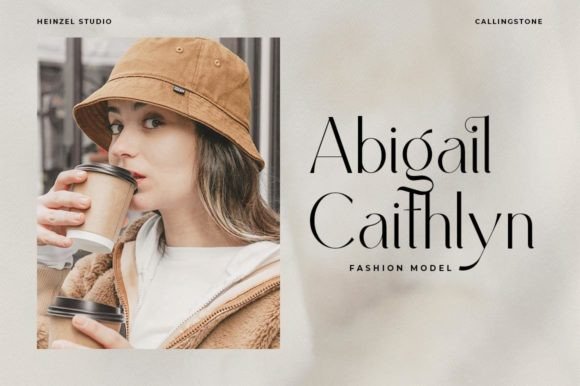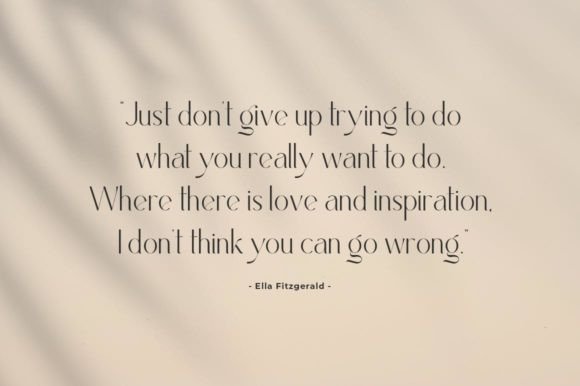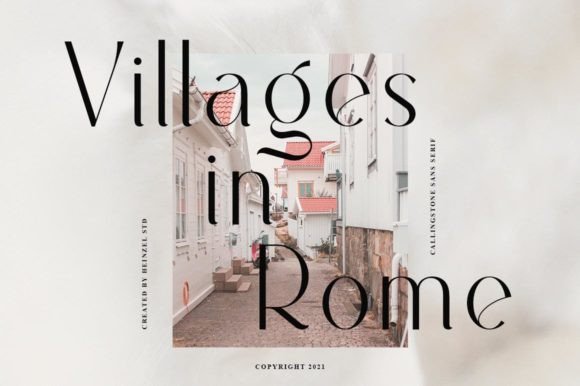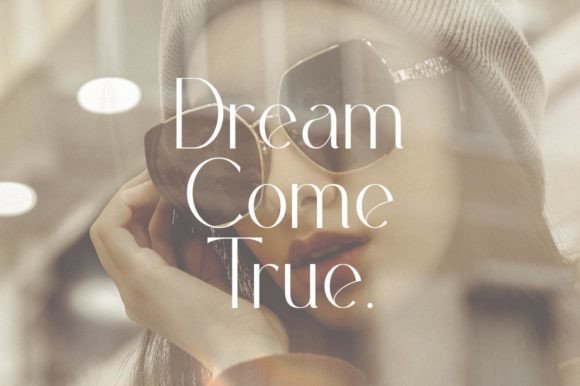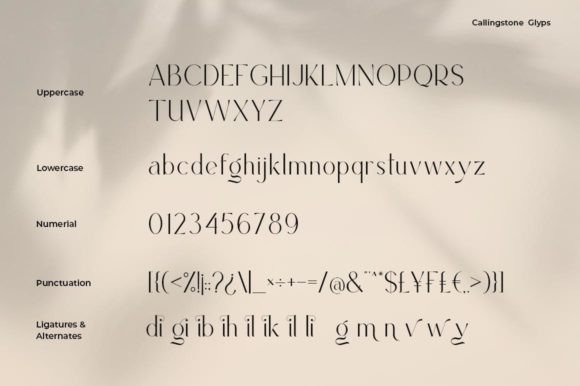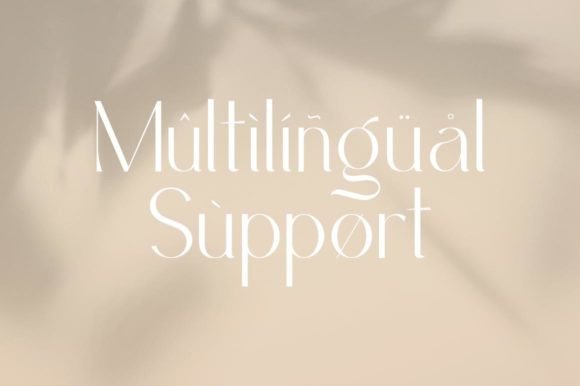
Discover the Elegance of Callingstone Font: Elevate Your Designs with Modern Sans Serif Style
In the world of typography, fonts play a crucial role in conveying messages, evoking emotions, and setting the tone for various design projects. Among the myriad of fonts available, Callingstone stands out as a beacon of elegance and modernity. This stunning sans serif font has captured the hearts of designers and crafters alike with its dazzling style, versatility, and the unique touch it brings to any project. In this article, we’ll delve into the beauty of Callingstone Font, explore its features, and discuss how it can be used to create breathtaking wedding invitations, beautiful stationery art, eye-catching social media posts, and much more.
The Essence of Callingstone Font
Callingstone is an elegant and modern sans serif font that embodies sophistication and simplicity. Its clean lines, balanced proportions, and exquisite details make it an ideal choice for designers seeking a font that exudes luxury and refinement. Whether you’re working on a wedding invitation, a piece of stationery, or a social media post, Callingstone brings a level of elegance that elevates your design to new heights.
Key Features of Callingstone Font
• Elegant and Modern Design: Callingstone boasts a sleek and contemporary design that is sure to make your projects stand out.
• Versatility: Its versatility allows it to be used across various design projects, from wedding invitations and stationery to social media graphics and more.
• Easy to Read: Despite its elegant appearance, Callingstone maintains excellent readability, making it perfect for both headings and body text.
• Customizable: The font offers a range of customization possibilities, allowing designers to tailor it to their specific needs.
Creative Applications of Callingstone Font
The applications of Callingstone Font are vast and varied. Here are a few ideas to inspire you:
Wedding Invitations and Stationery
Callingstone’s elegant and sophisticated design makes it an excellent choice for wedding invitations, save-the-date cards, and other wedding stationery. Its modern sans serif style adds a touch of luxury and romance to your wedding communications, setting the tone for a memorable event.
Stationery Art
Elevate your stationery art with Callingstone’s refined and stylish appearance. From greeting cards and thank-you notes to letterheads and journals, Callingstone brings a level of sophistication that makes your stationery truly special.
Social Media Posts
In the digital age, social media posts play a crucial role in communication and marketing. Callingstone can help your social media graphics stand out with its modern and elegant design. Use it to create eye-catching posts, announcements, and promotional materials that capture attention and engage your audience.
And More!
Beyond these applications, Callingstone’s versatility means it can be used for a wide range of projects, including branding, packaging, signage, and digital interfaces. Its elegant and modern design ensures that your projects look professional and appealing, regardless of the context.
Tips for Using Callingstone Font Effectively
To make the most of Callingstone Font, consider the following tips:
• Pair it with Complementary Fonts: Experiment with pairing Callingstone with other fonts to create visual interest and hierarchy in your designs.
• Adjust Size and Weight: Play with different sizes and weights of Callingstone to add depth and emphasis to your text.
• Use it for Headings and Subheadings: Take advantage of Callingstone’s elegant appearance by using it for headings and subheadings, and pair it with a more straightforward font for body text.
Callingstone Font is a gem in the world of typography, offering a perfect blend of elegance, modernity, and versatility. Whether you’re a designer working on a professional project or a crafter looking to add a personal touch to your creations, Callingstone is an excellent choice. Its dazzling style and adaptability make it suitable for a wide range of applications, from wedding invitations and stationery art to social media posts and beyond. Discover the beauty of Callingstone Font and elevate your designs to new heights of sophistication and style.